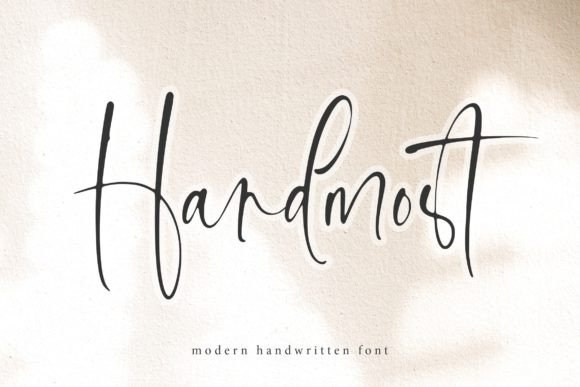
Introducing Handmost Font - The Quintessential Script Font for Creative Expression!
Handmost is not just a font; it's a gateway to a world of captivating designs. This enchanting script font, meticulously crafted by the talented artists at Aestherica Studio, is a masterpiece that will elevate your creative projects to new heights.
With its elegant curves and playful personality, Handmost is the perfect choice for a wide range of applications. Whether you're designing product packaging, branding projects, magazines, social media graphics, or wedding invitations, Handmost will add an irresistible charm to your work.
Immerse yourself in the boundless possibilities of Handmost. Use it to create stunning logos that leave a lasting impression, design eye-catching posters that demand attention, or craft social media posts that captivate your audience. Handmost is the key to unlocking your creative potential and making a statement with every design.
Handmost is more than just a font; it's an experience. Its enchanting characters dance across the page, inviting viewers to explore the depths of your imagination. Let Handmost be your guide as you embark on a journey of creativity, leaving behind a trail of beauty and inspiration.